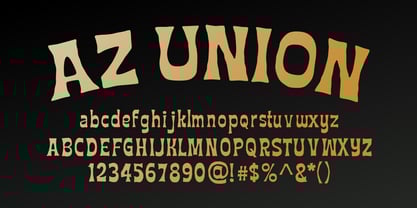
AZ Union Font
AZ Union Font is perfect for collaborative branding projects, partnership logos, community organization materials, unity-focused campaigns, collective marketing efforts, team-building communications, cooperative business branding, alliance presentations, solidarity event graphics, and harmonious corporate identities.
What makes AZ Union Font so exciting is its unifying character that perfectly captures the spirit of collaboration and collective strength while maintaining professional authority and contemporary appeal. This cohesive typeface embodies partnership and solidarity, creating typography that communicates unity, cooperation, and the powerful synergy of working together.
The AZ Union Font family includes light, regular, medium, bold, and black weights, complete with collaborative design features, unity-inspired elements, and harmonious styling options that provide designers with comprehensive tools for creating cohesive and memorable typography that celebrates the strength of partnership and collective action.
The harmoniously designed letterforms of AZ Union Font showcase collaborative elegance with unified character that creates instant recognition of collective strength and partnership quality. Each character displays careful attention to maintaining the cohesive spirit that defines successful collaboration while ensuring contemporary readability and professional versatility. The font's balanced construction and unified spacing contribute to its harmonious appearance and collaborative appeal.
Partnership organizations and community-focused brands consistently choose AZ Union Font for projects requiring collaborative authenticity and unified presentation. The comprehensive character set includes uppercase and lowercase letters, numerals, extensive punctuation, international accents, and unity-inspired elements that provide complete support for collaborative branding applications and partnership design compositions.
The collaborative versatility of AZ Union Font ensures exceptional performance across both traditional print and modern digital platforms. Whether developing partnership brand identities, creating collaborative marketing materials, or designing unity-focused communications, this remarkable typeface delivers consistent harmony that resonates with audiences seeking cooperation, partnership, and collective success.